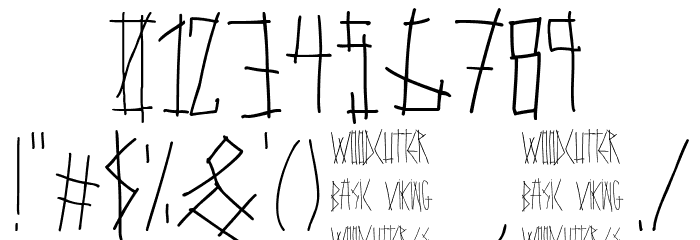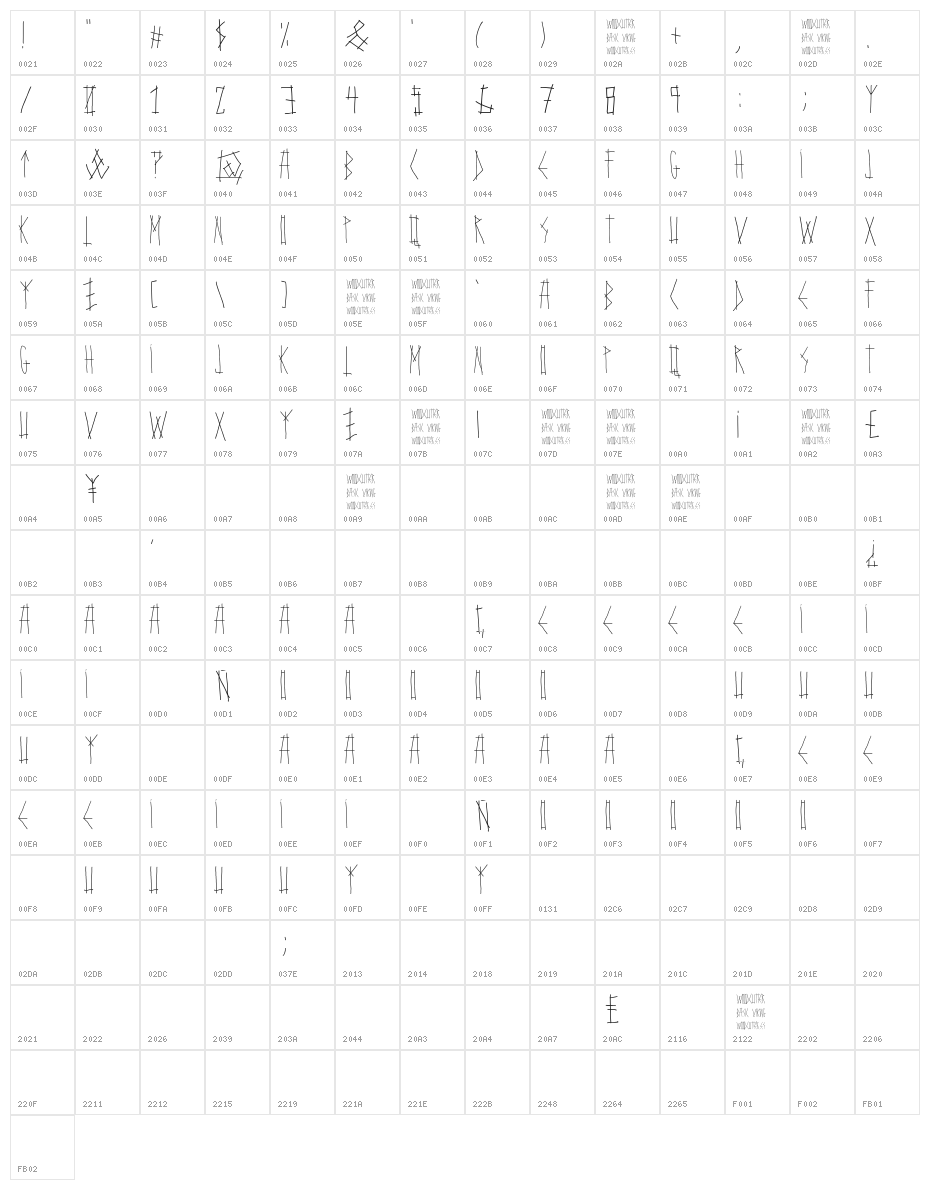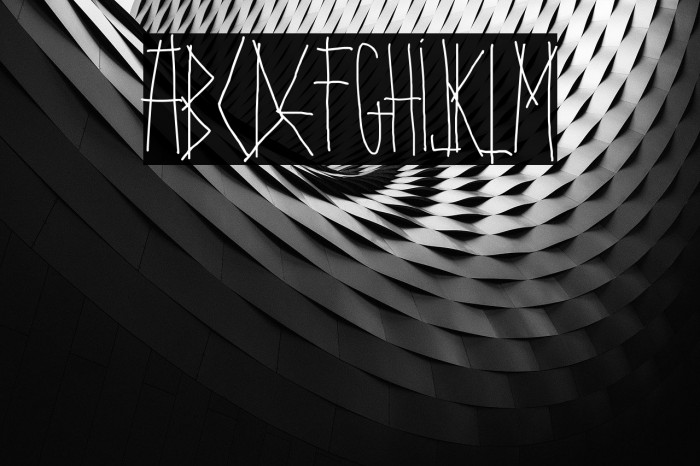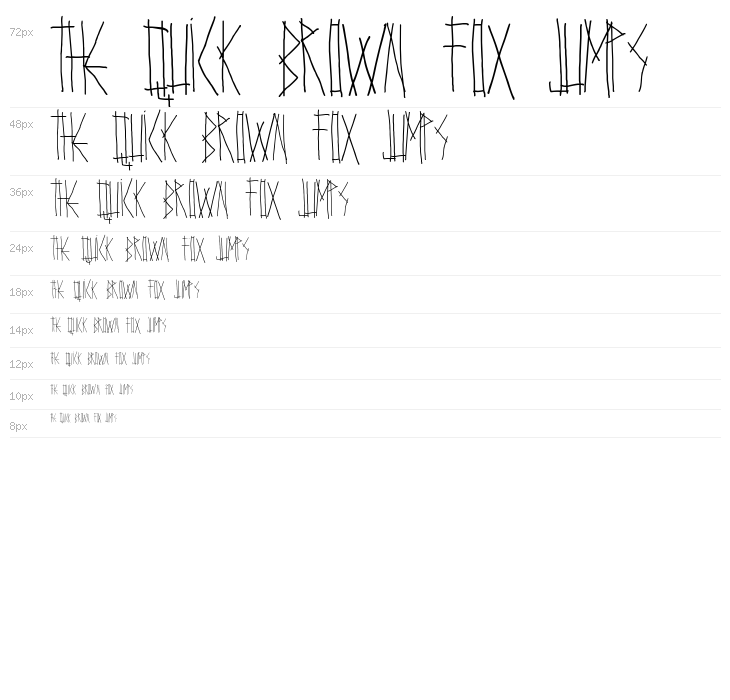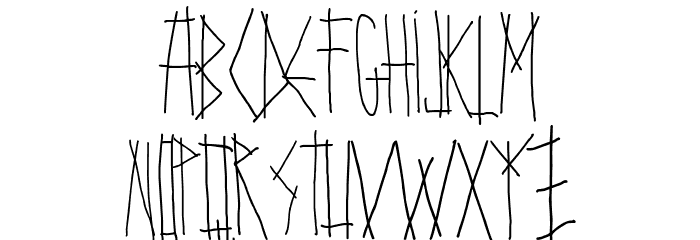
Woodcutter Basic Viking Font
Woodcutter Basic Viking Description
This font is inspired by ancient runic alphabets, featuring angular and linear strokes that evoke a sense of historical and cultural depth. Each character is crafted with a distinct, hand-drawn appearance, reminiscent of carvings on wood or stone. The uppercase and lowercase letters maintain a consistent style, with sharp angles and elongated forms that create a cohesive and striking visual impact. Numbers and special characters are designed to blend seamlessly with the alphabet, maintaining the overall aesthetic. The font's unique style makes it ideal for projects that require a touch of antiquity and mystique.